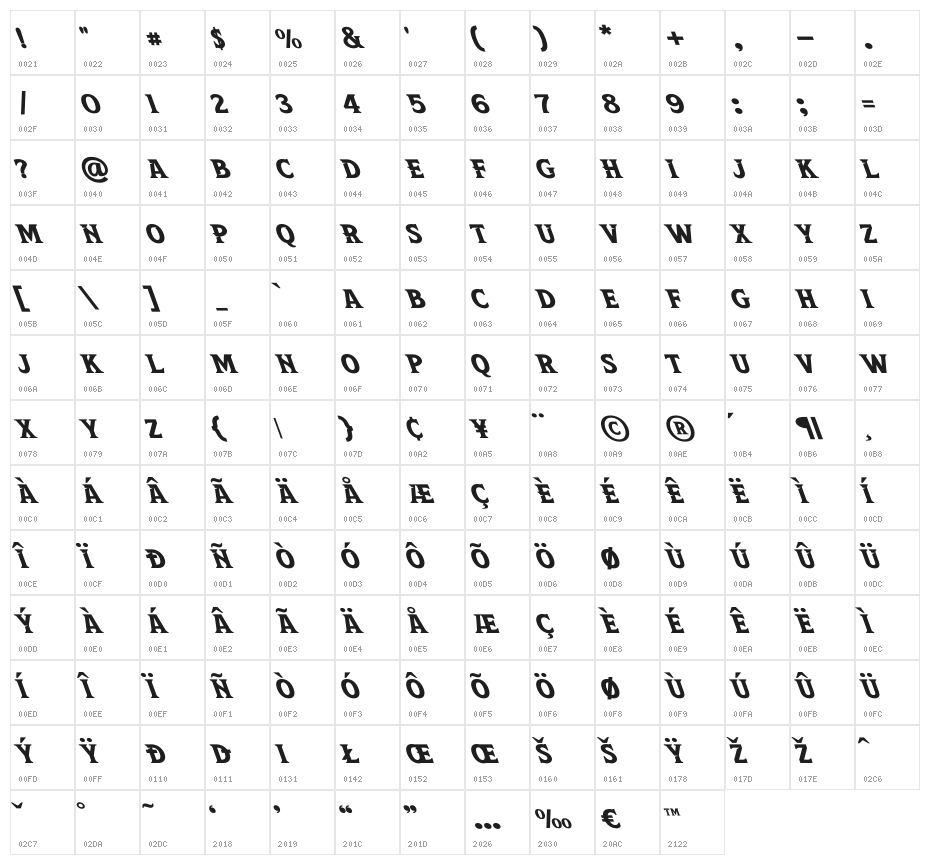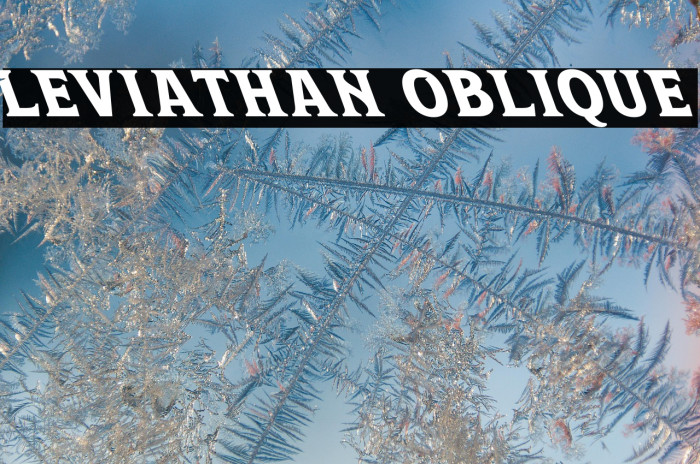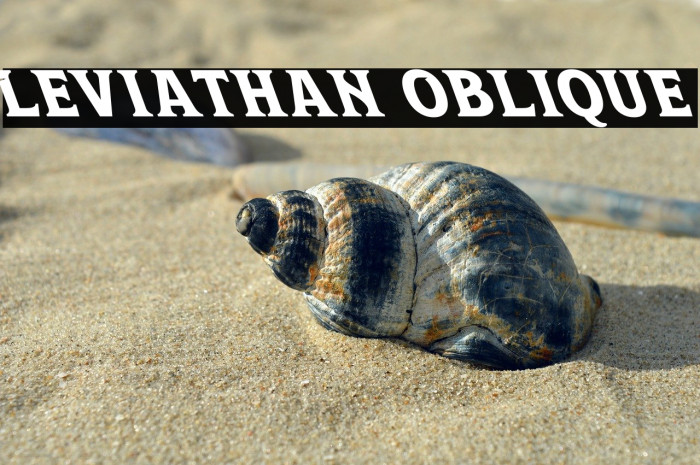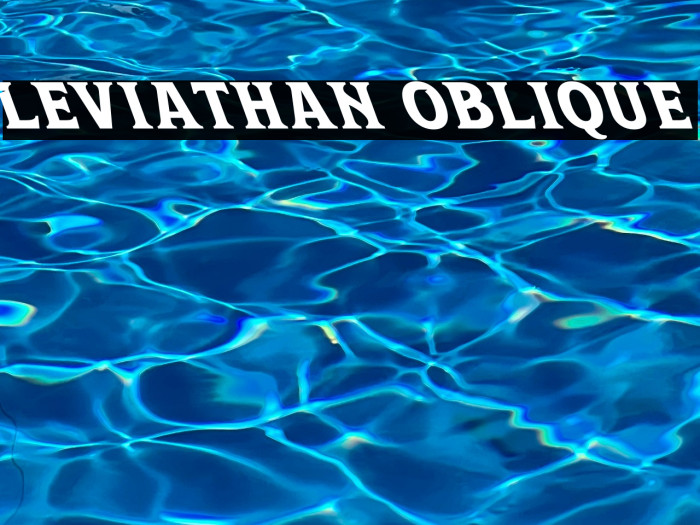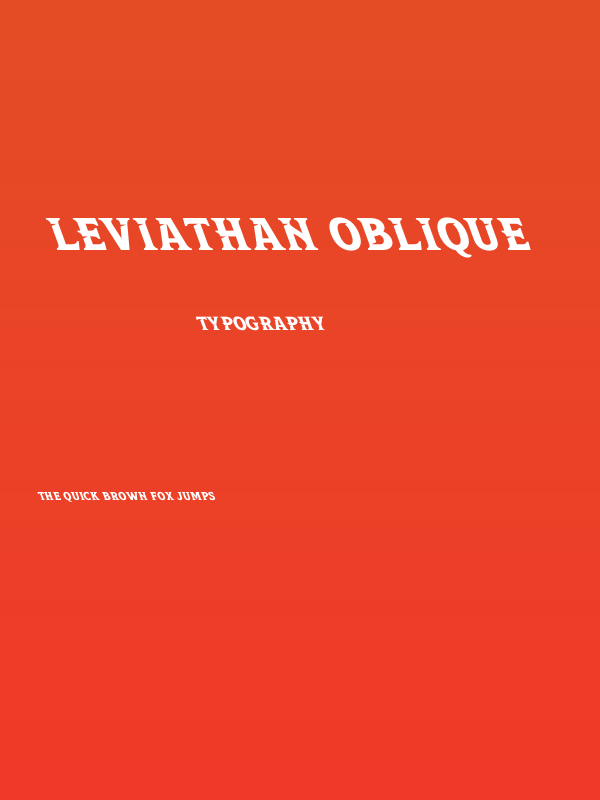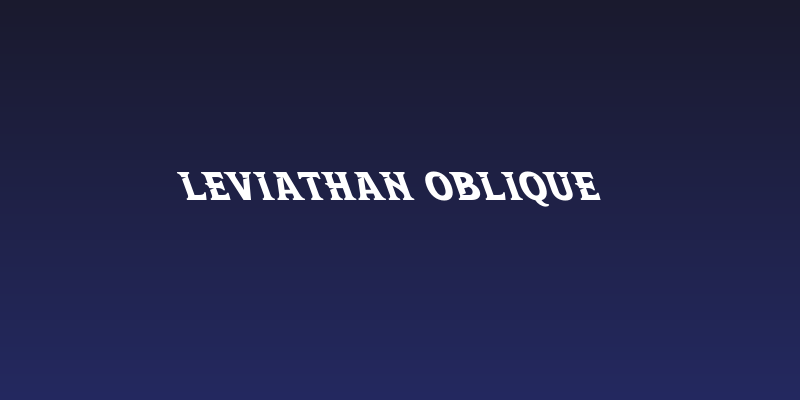
Leviathan Oblique Font
Leviathan Oblique Description
This font features a bold and dynamic style with a strong oblique slant, giving it a sense of movement and urgency. The characters are robust and have a pronounced weight, making them stand out prominently. The serifs are thick and angular, adding a touch of aggression and strength to the overall appearance. The numbers and special characters maintain the same boldness and slant, ensuring consistency across all elements. This font is ideal for making a statement and capturing attention with its powerful presence.
| Proposed Projects | Ideal for headlines, posters, branding, and any project that requires a bold and impactful typeface. |